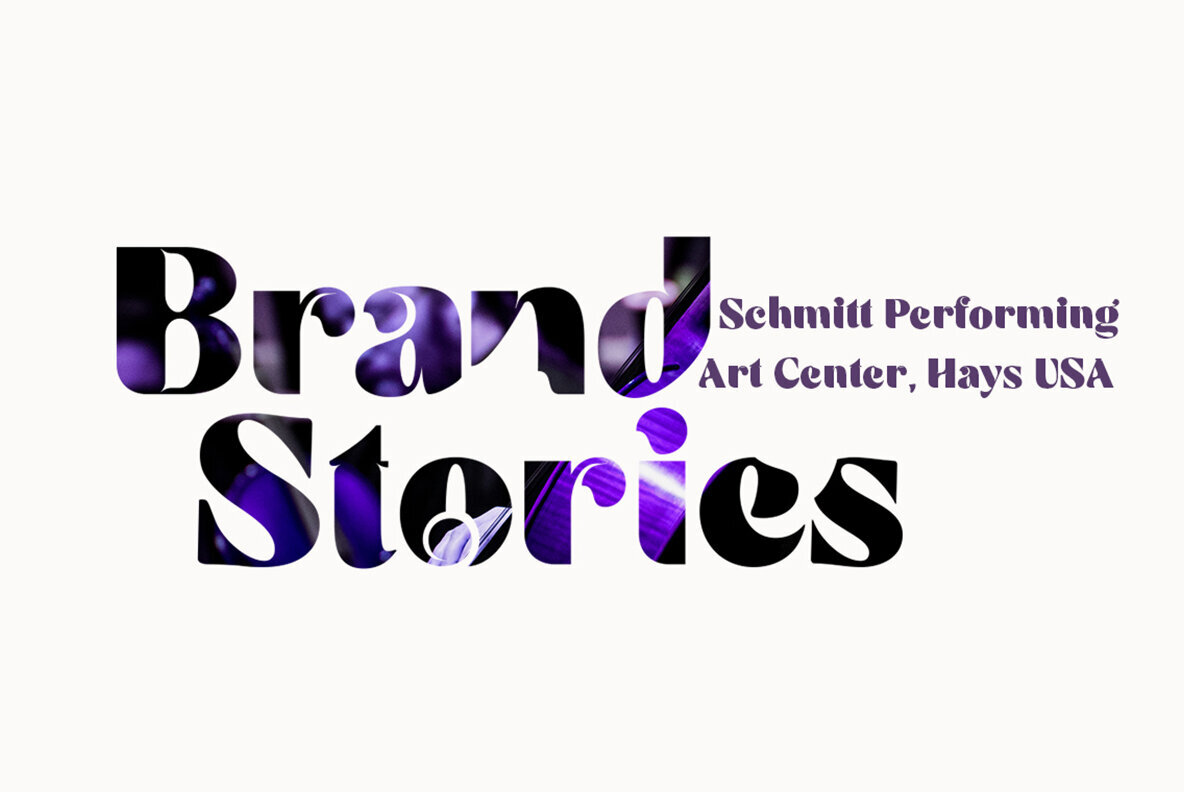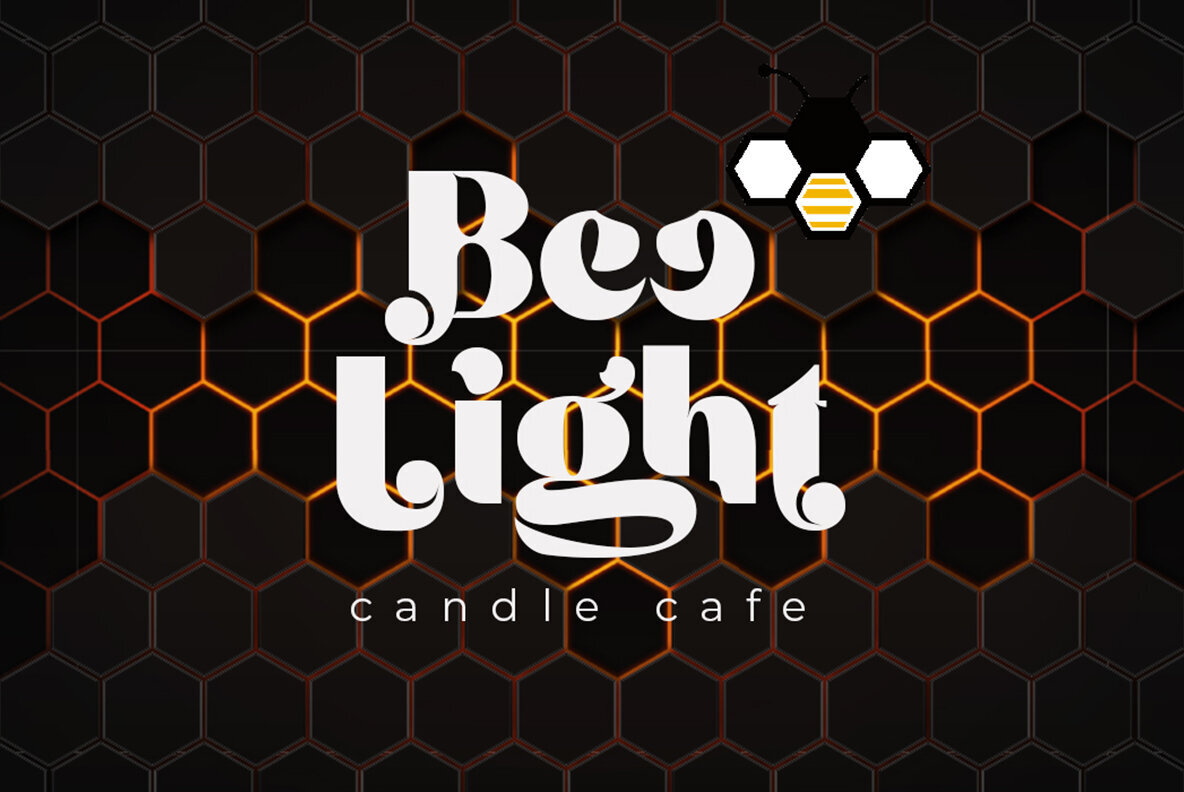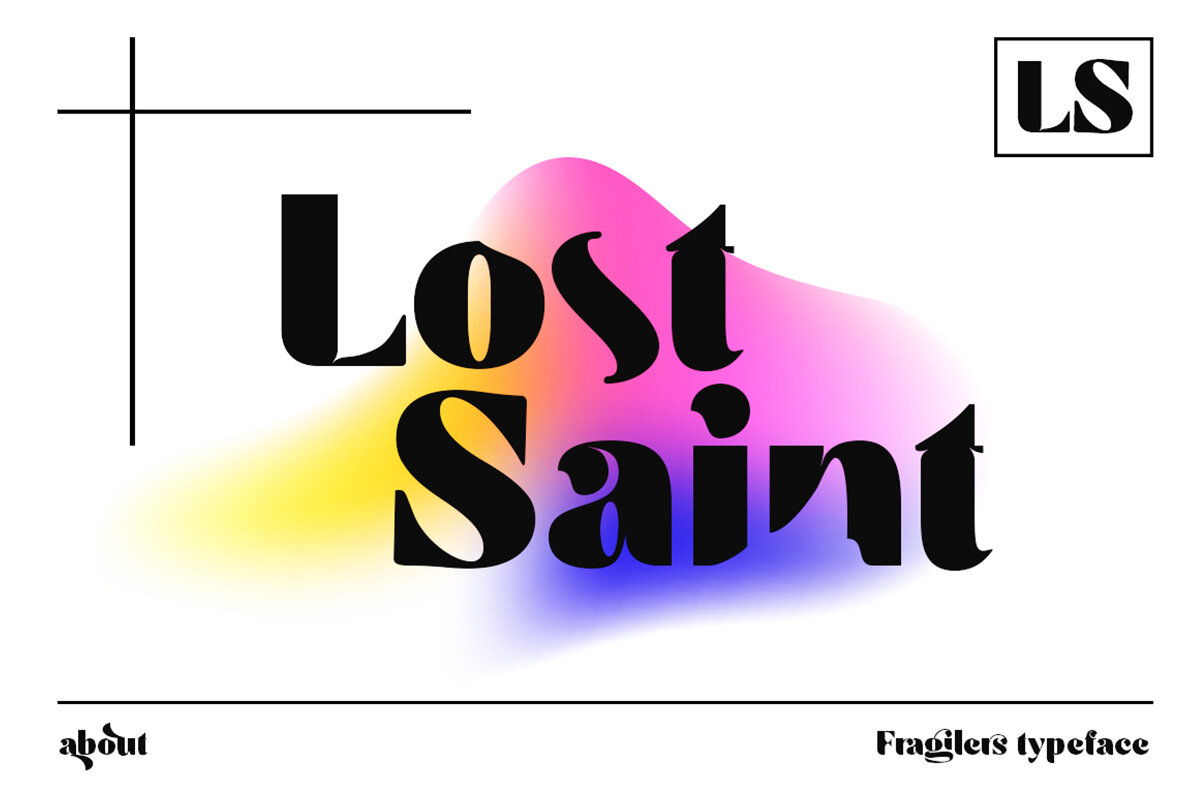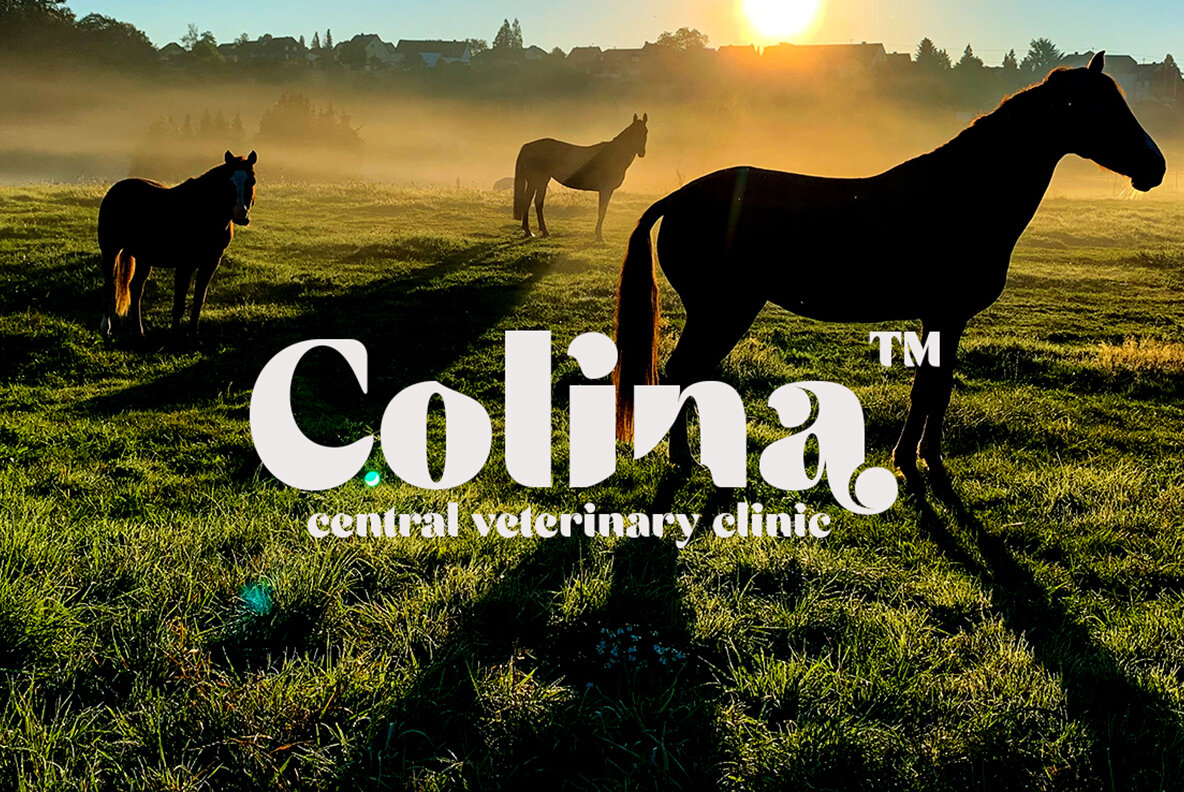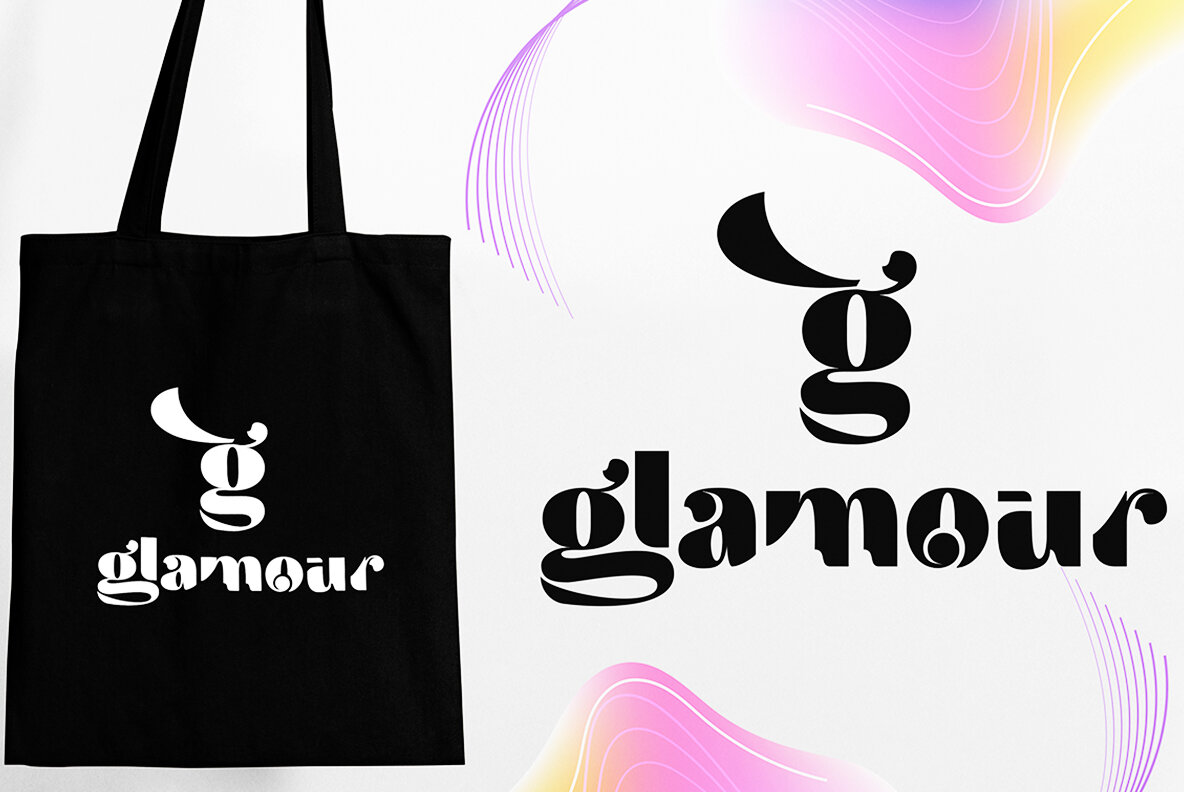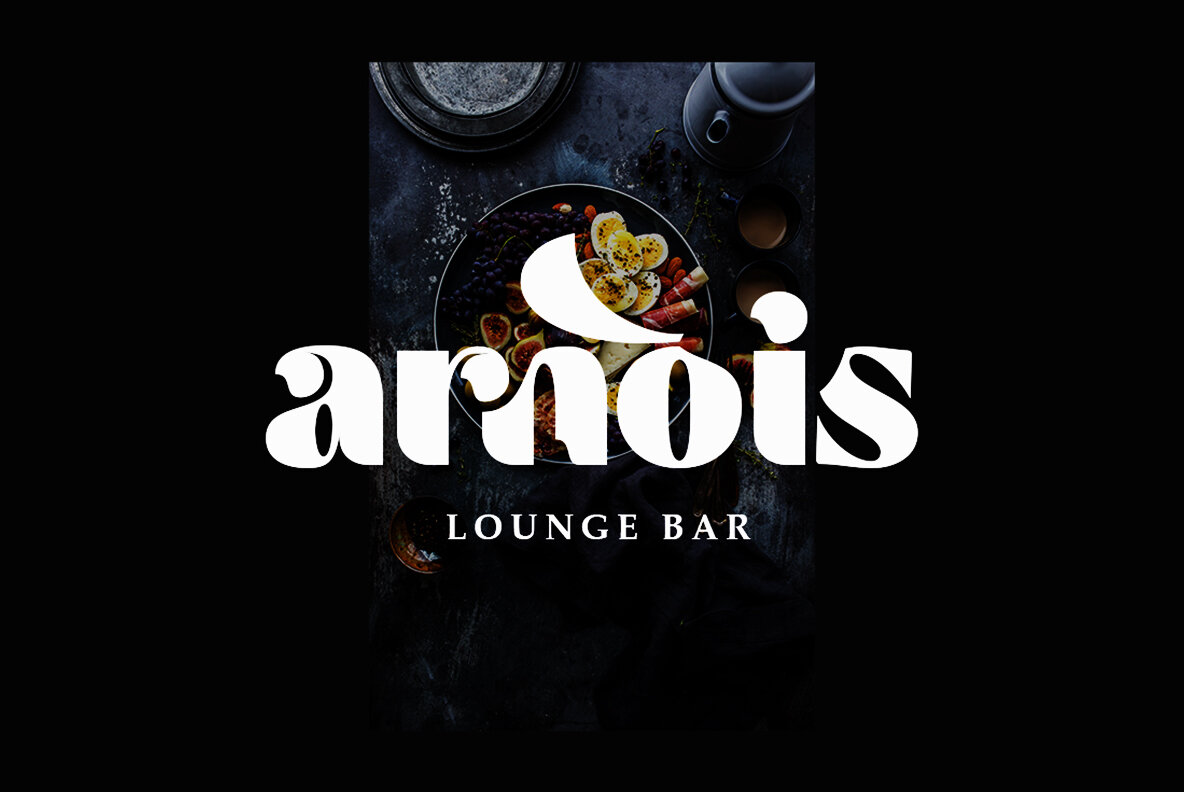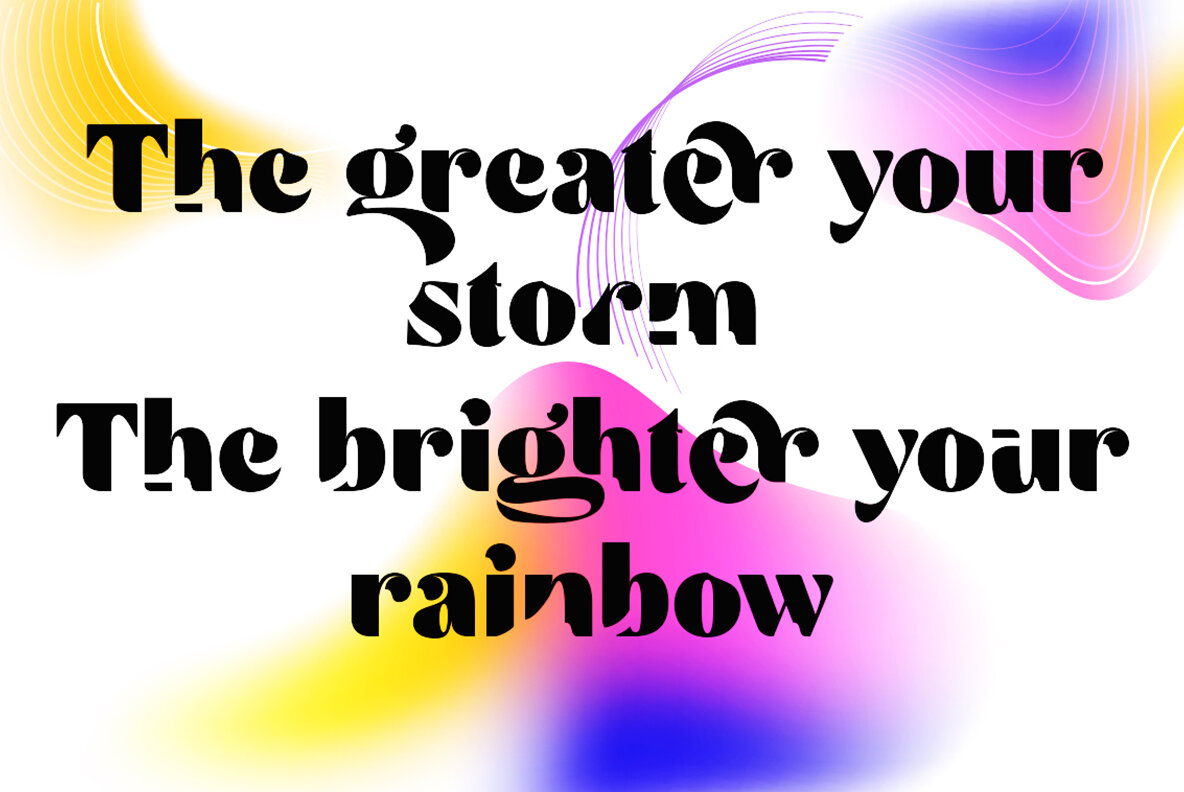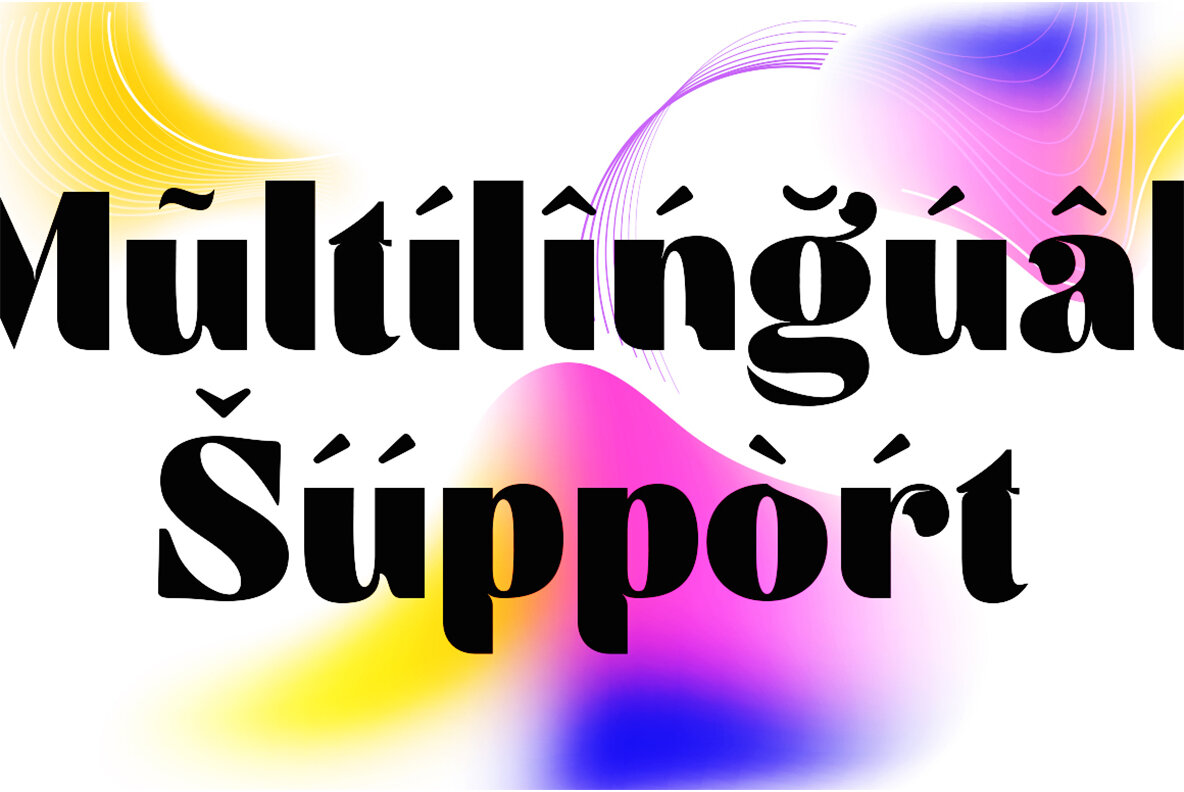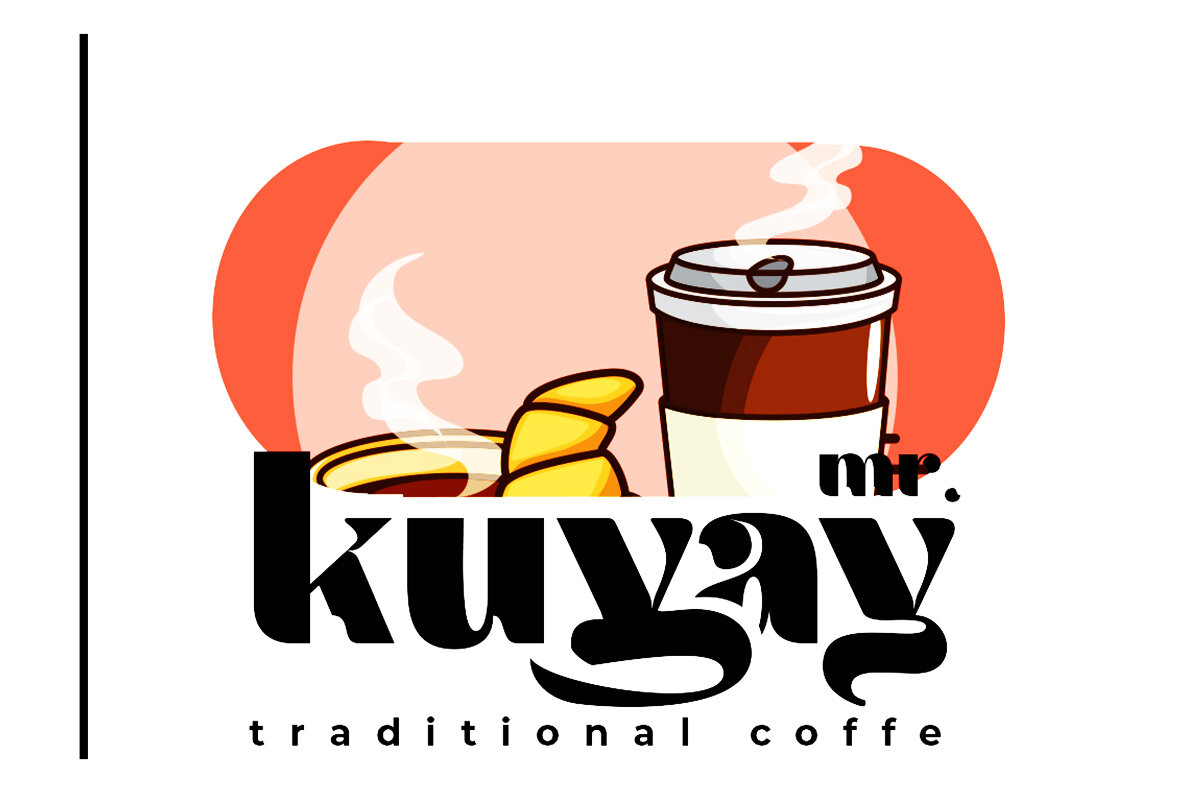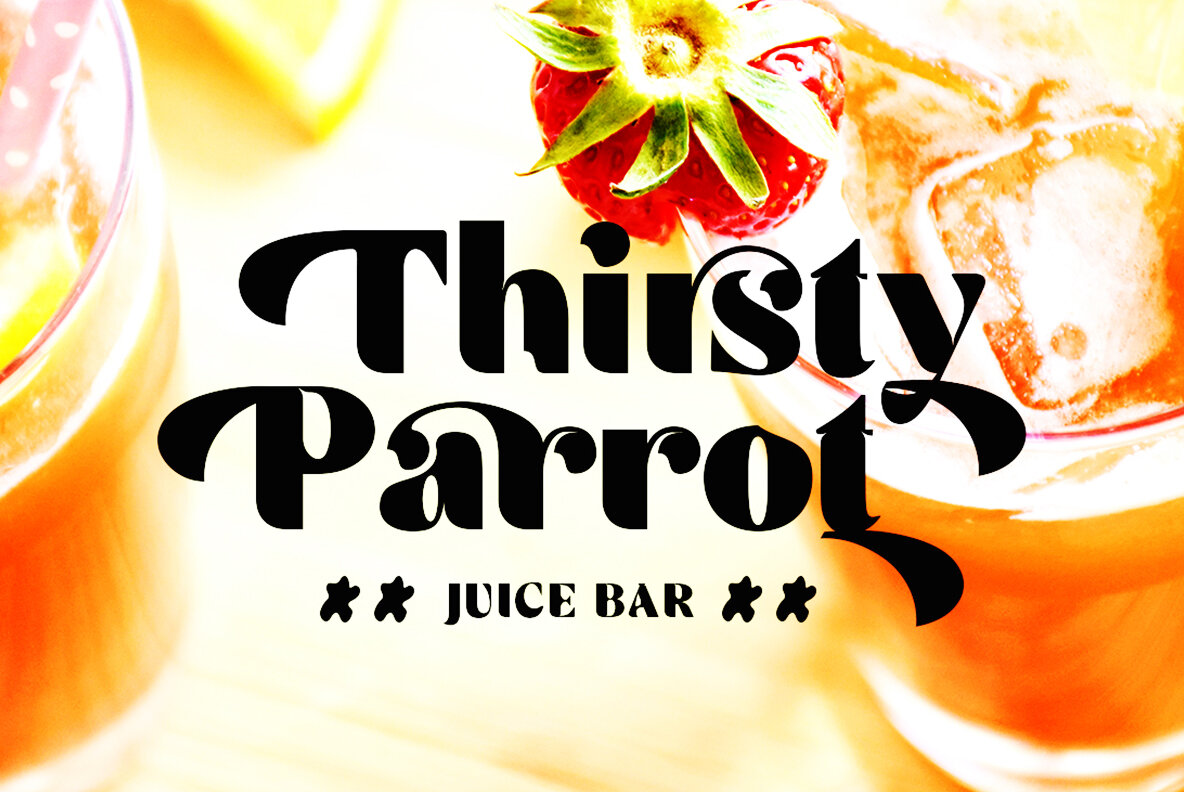
Fragilers Font
Fragilers Regular
Fragilers is a bold sans display typeface characterized by its high contrast, providing versatility and elegance. Enrich your designs with the distinctive and character-rich Fragilers typeface.Fragilers: Bold Sans Display with High Contrast
Features and Application